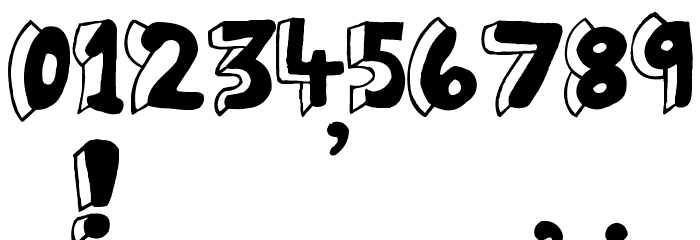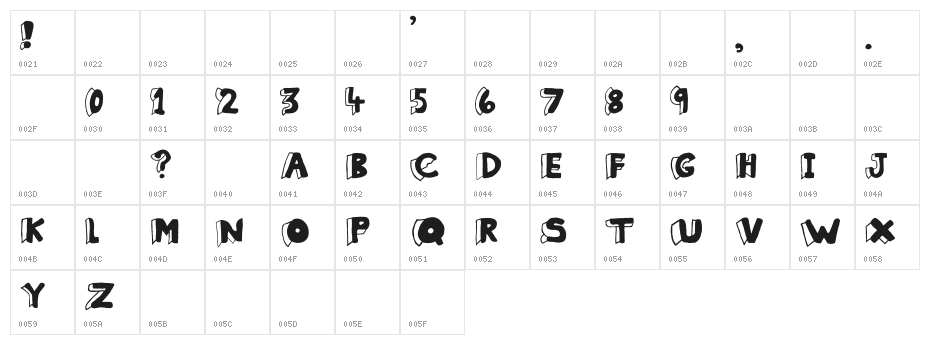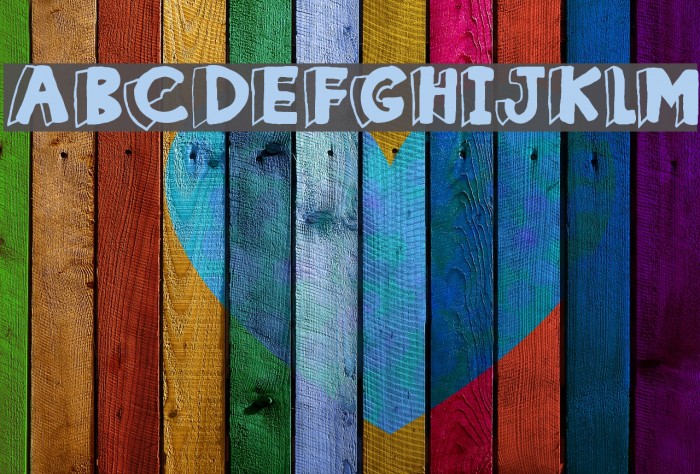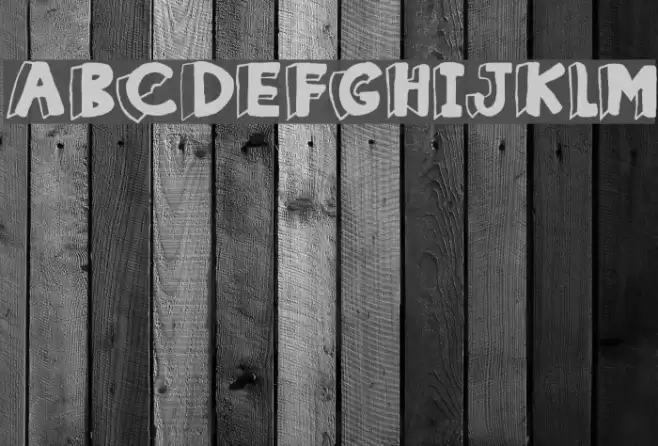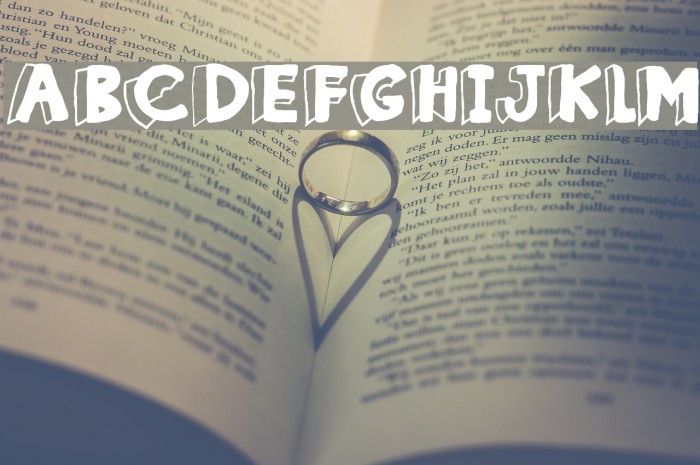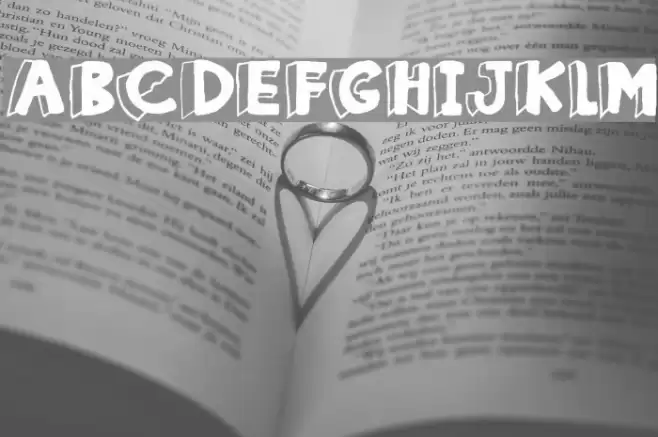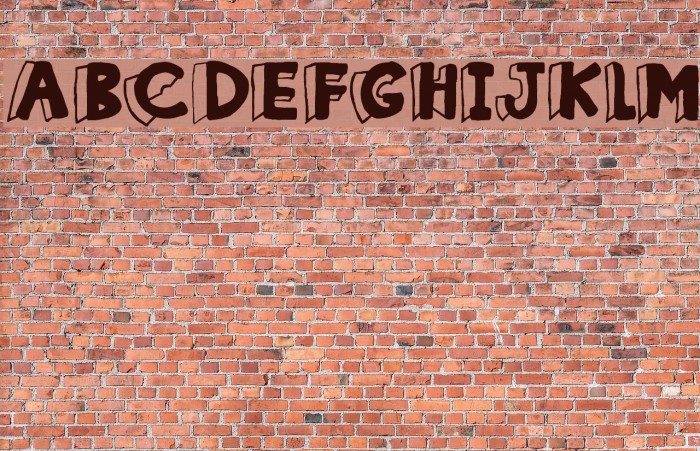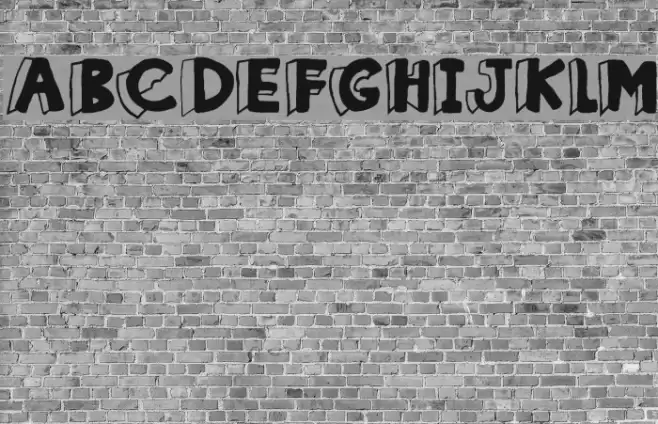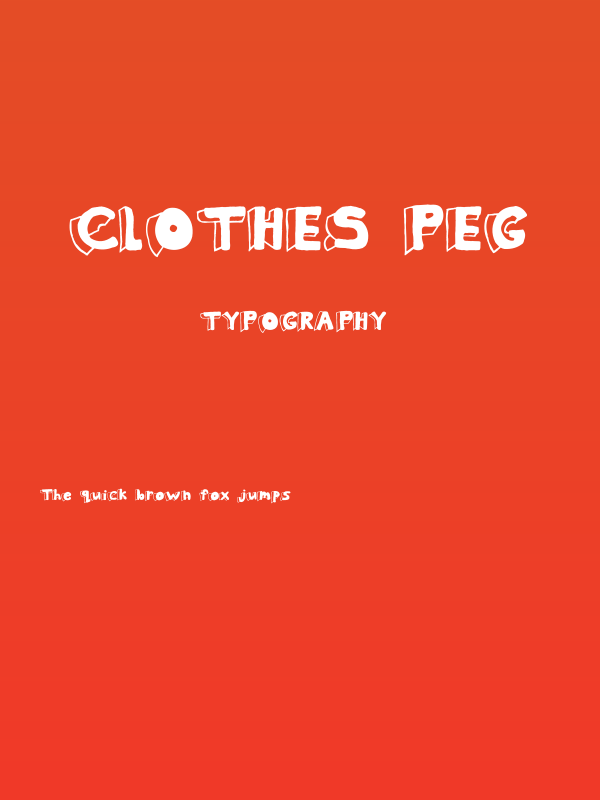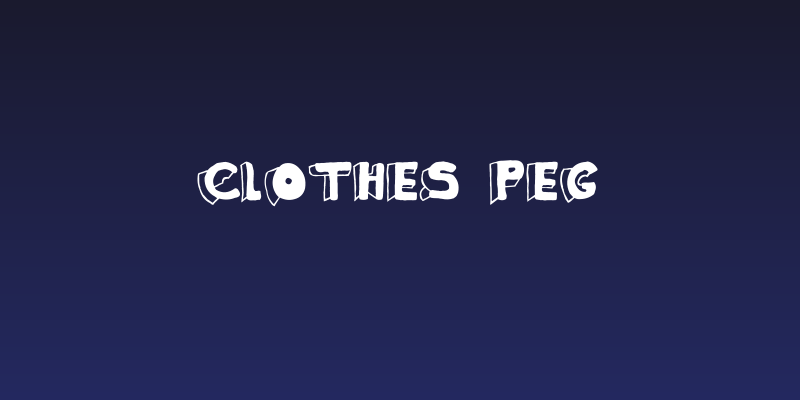
Clothes Peg Font
Clothes Peg Description
This font features a bold and playful design with a hand-drawn aesthetic. The characters are thick and have a three-dimensional appearance, created by a shadow effect that gives them depth. The style is informal and whimsical, making it ideal for creative and fun projects. The letters have a slightly irregular shape, adding to the casual and artistic feel. The numbers and special characters maintain the same lively style, ensuring consistency across all text elements.
| Overall Style | Playful, Artistic |
| Proposed Projects | Ideal for children's books, comic strips, playful branding, and creative posters. |